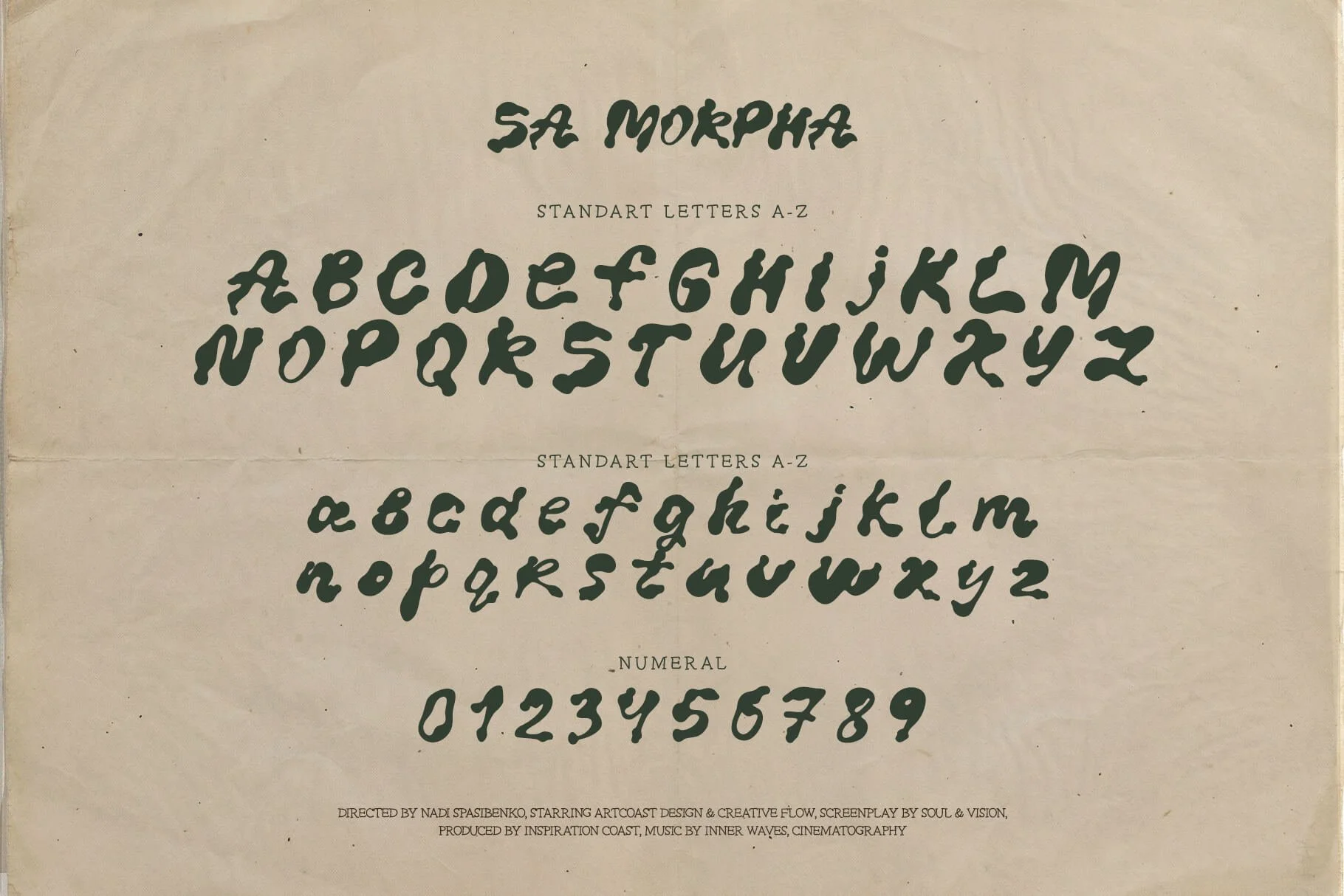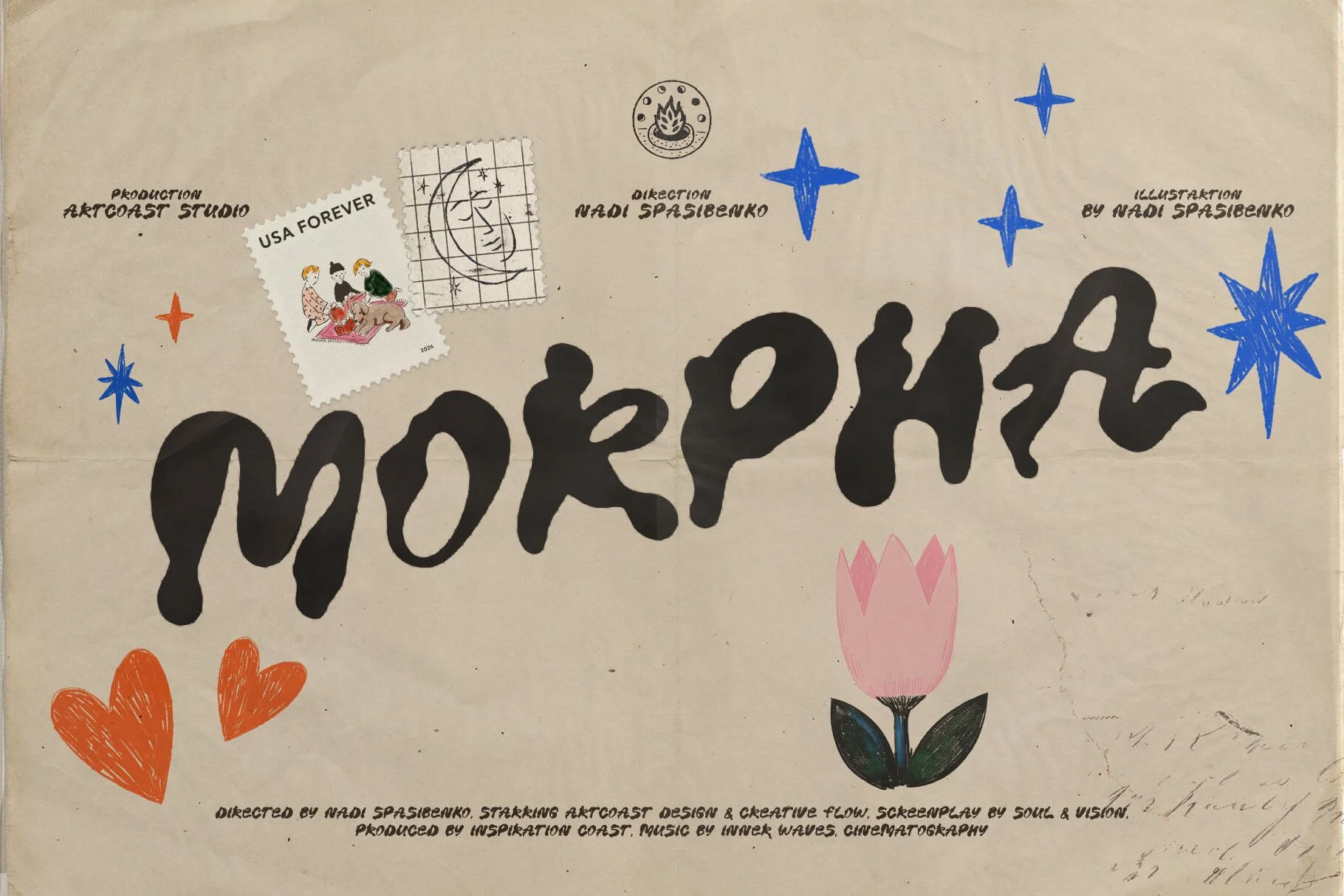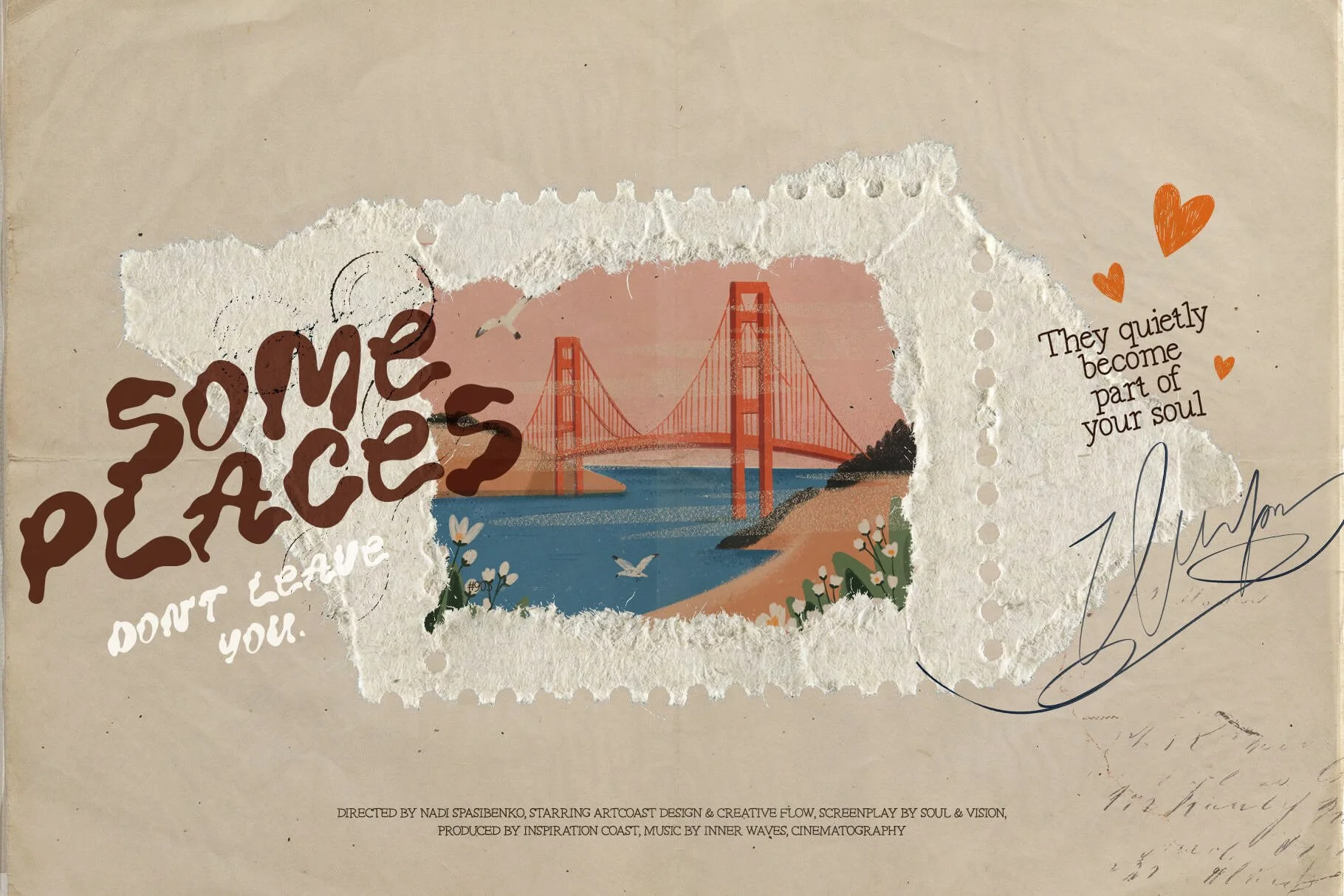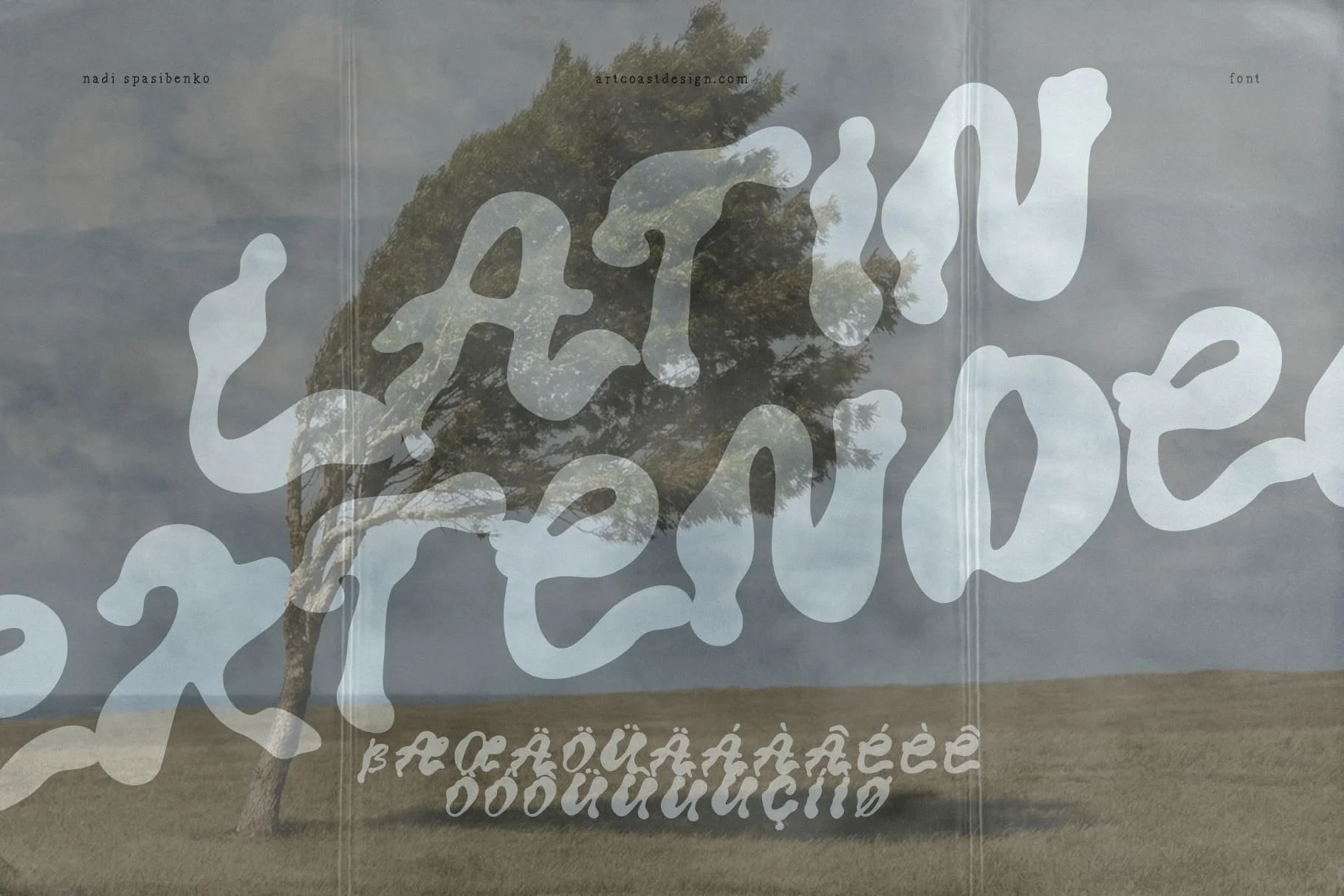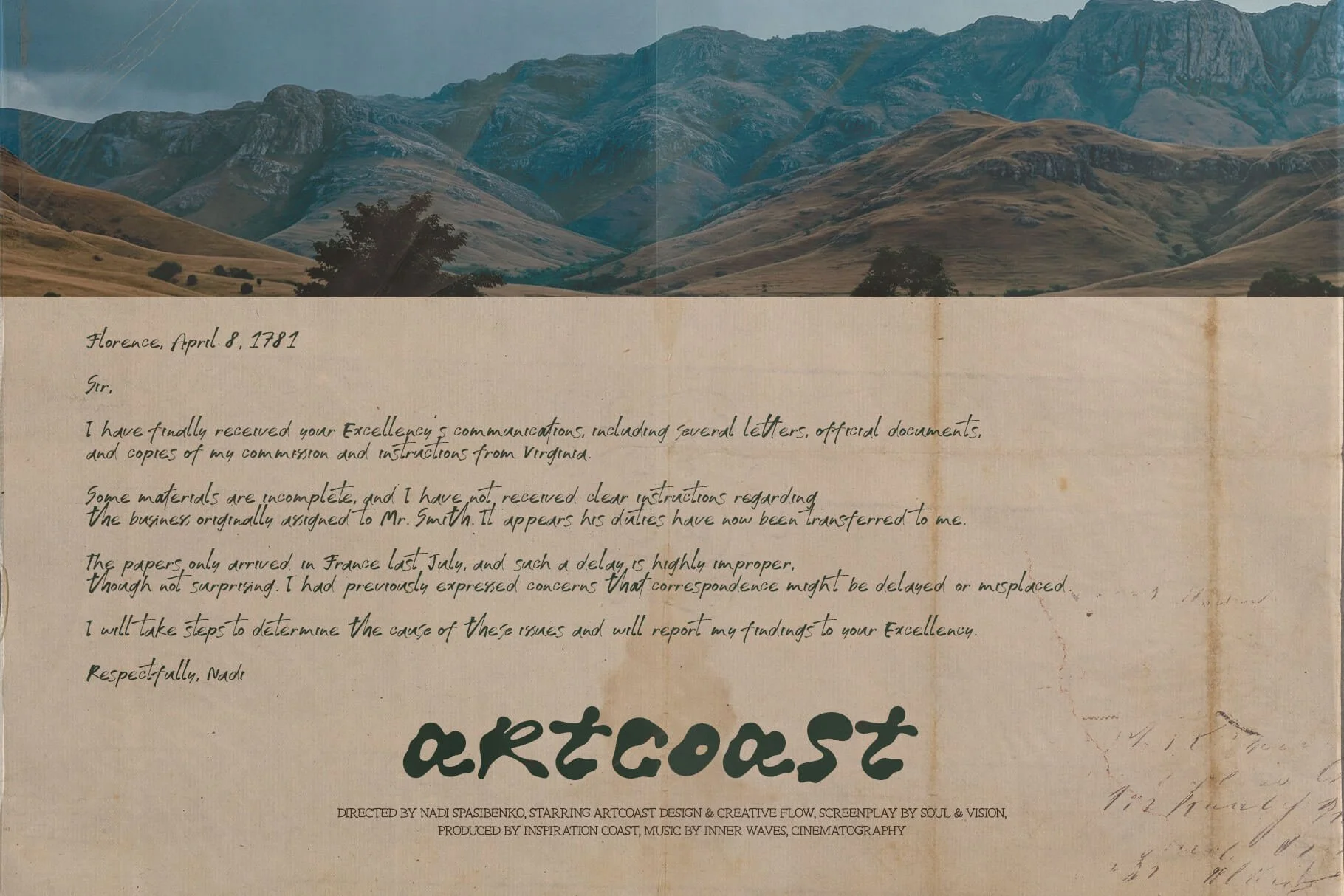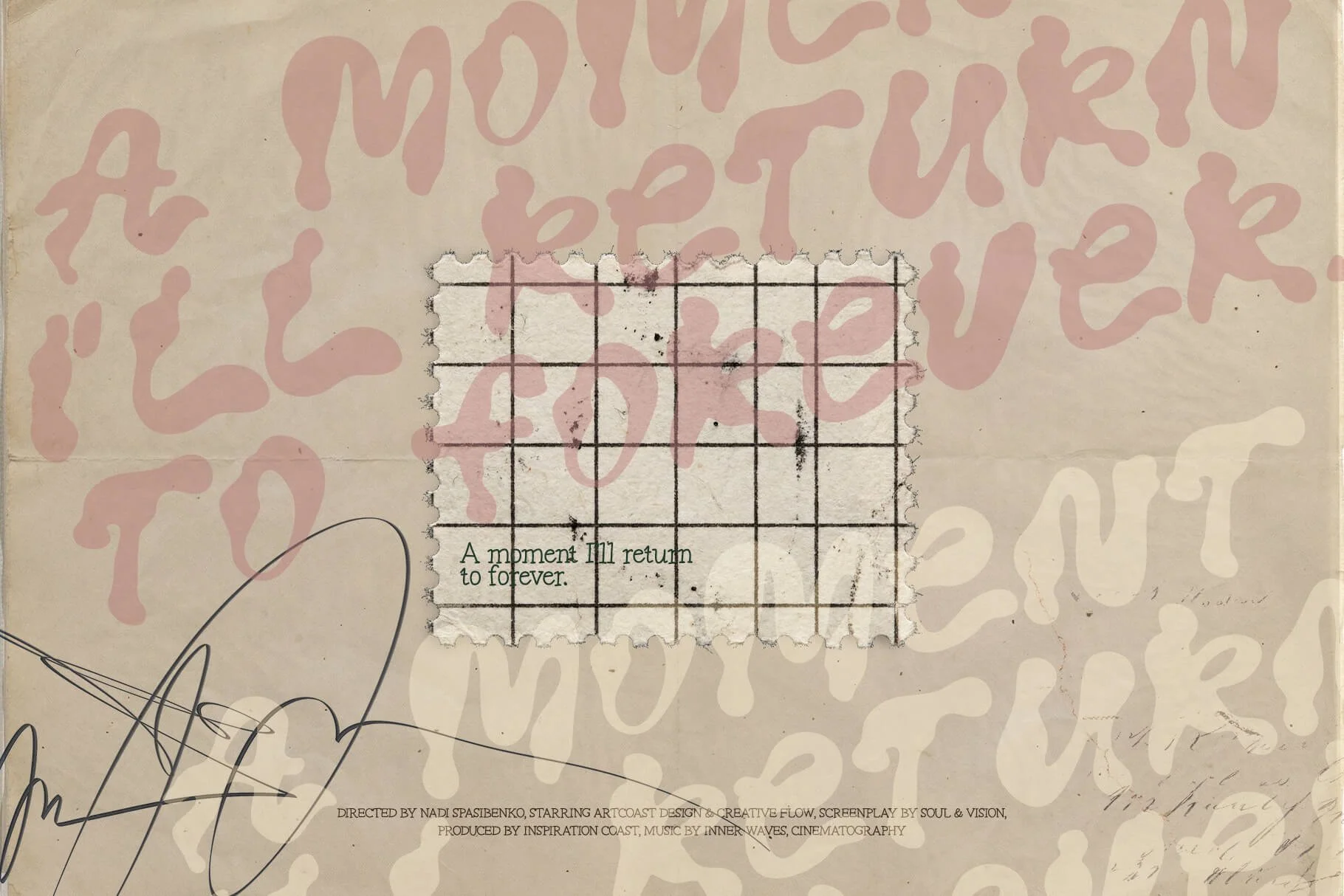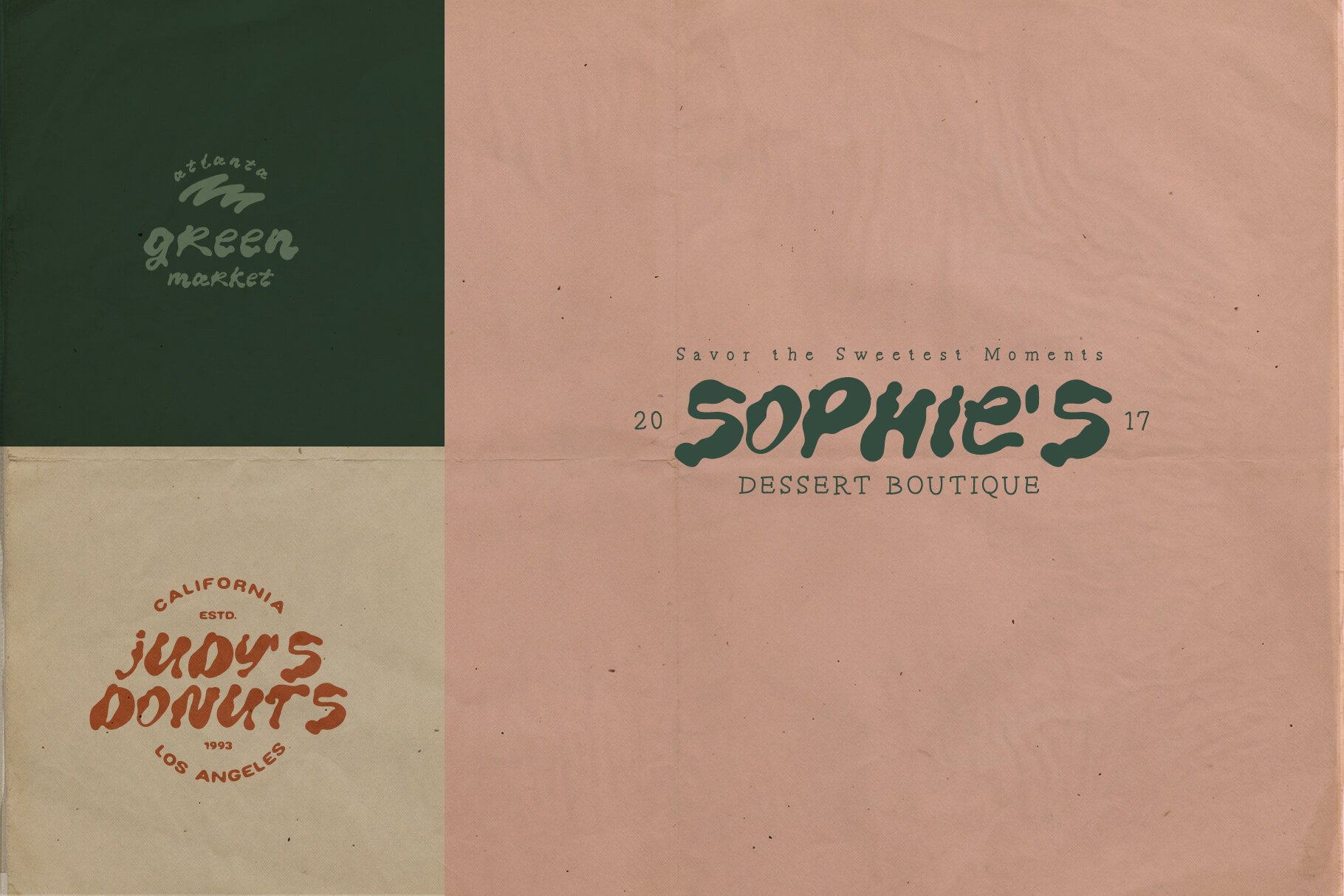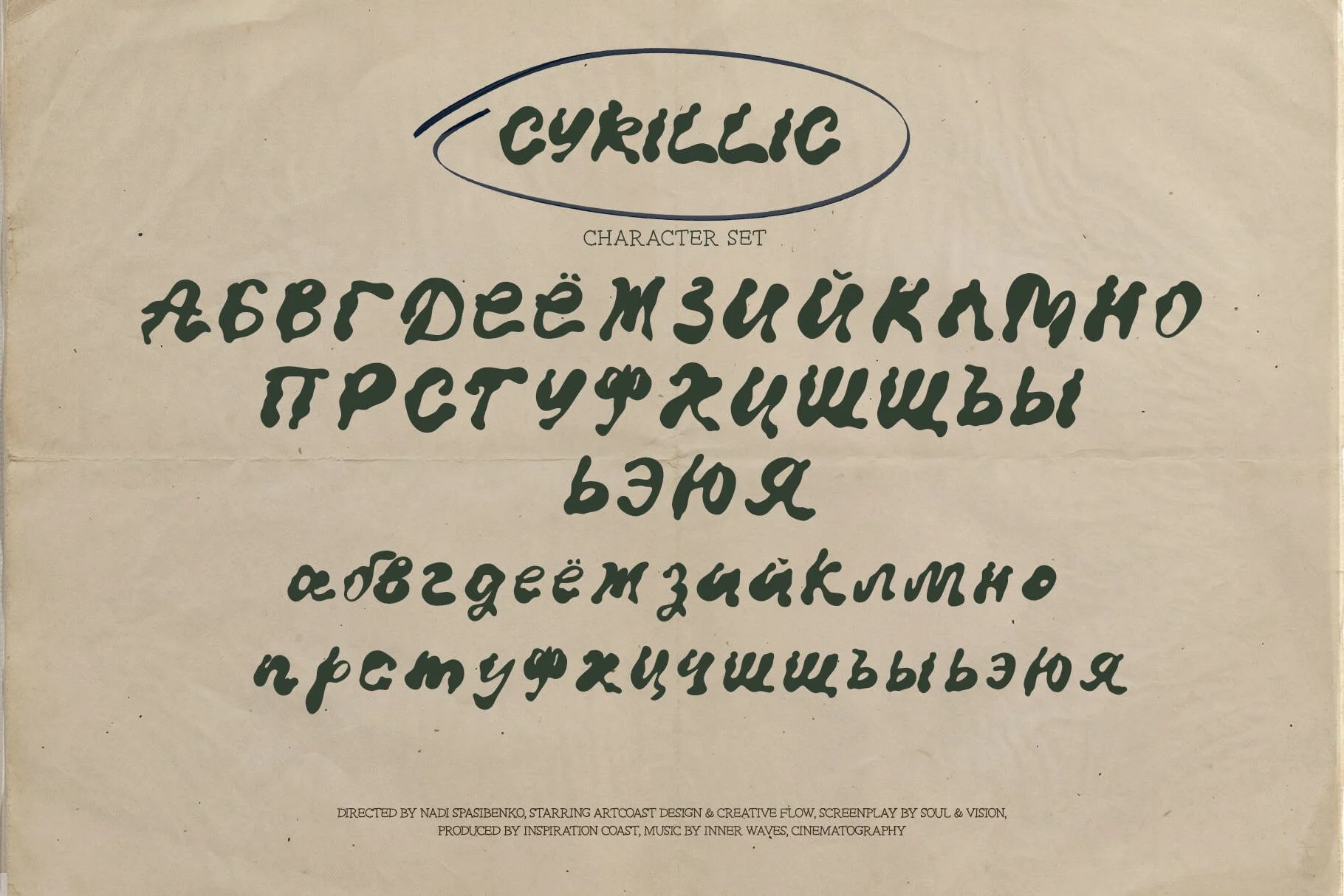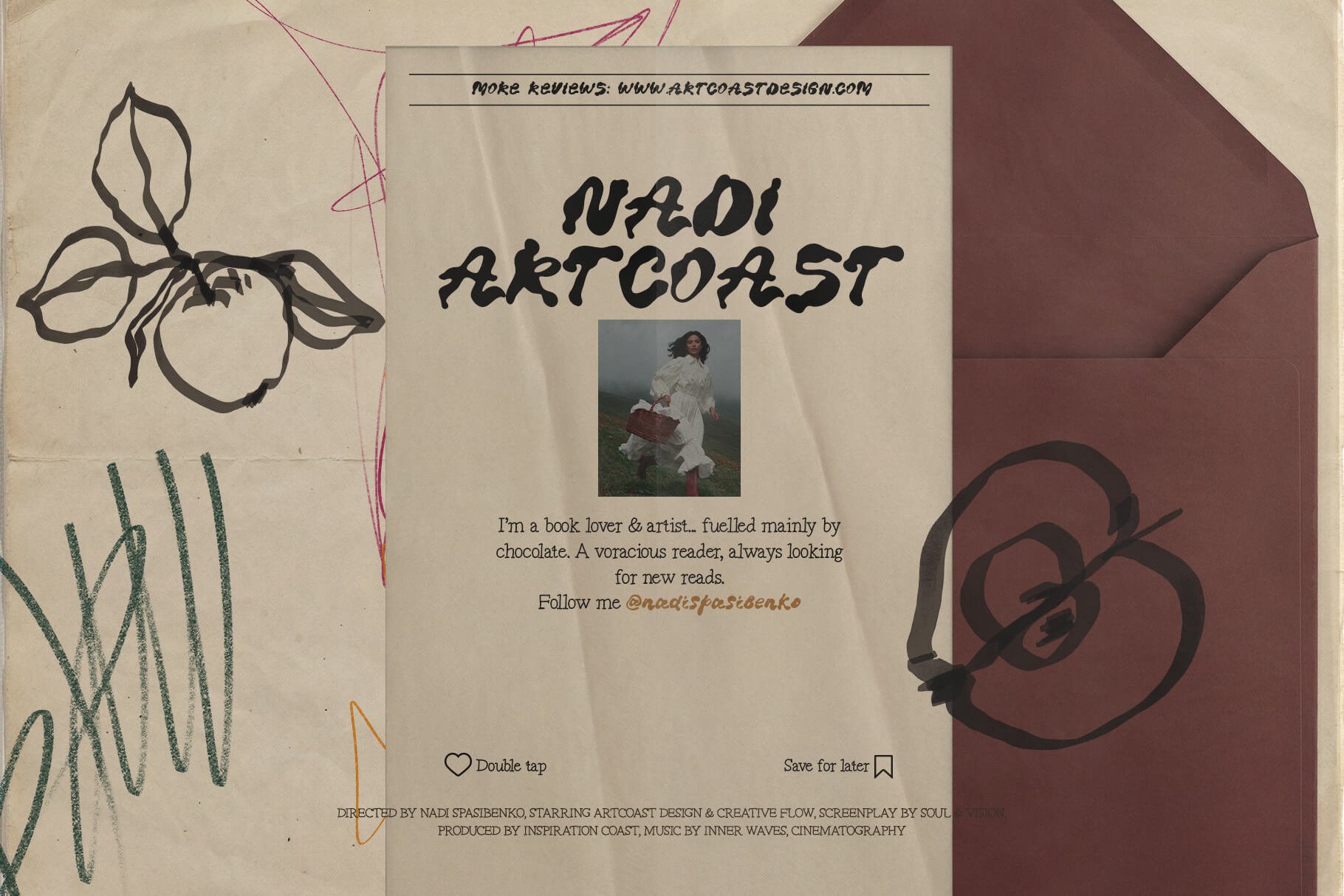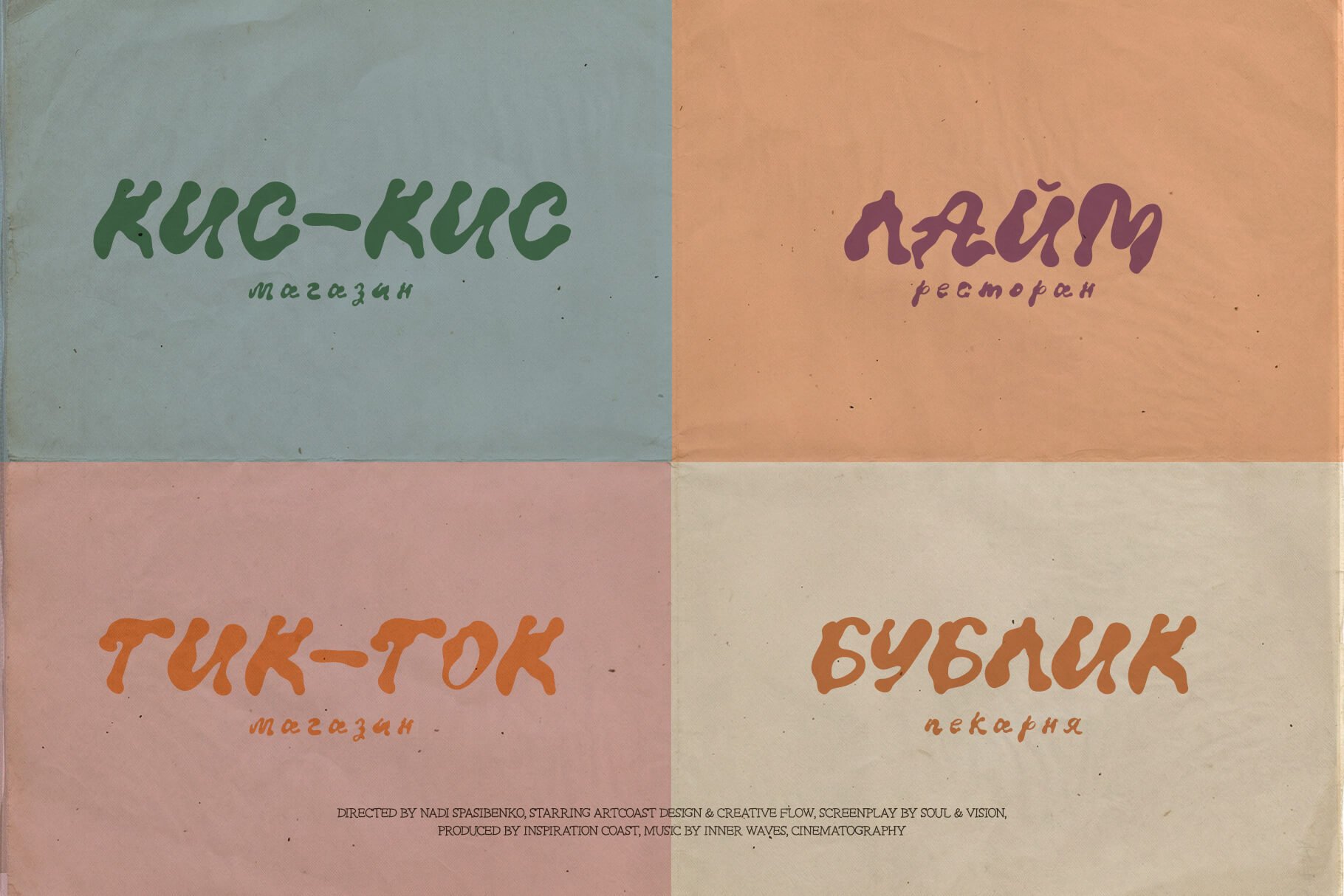
Morpha – Organic Blob Typeface: The Flow of Modern Design
Morpha is a high-energy organic blob typeface that captures the essence of fluid movement and liquid aesthetics. Designed with soft, melting curves and bold, hand-drawn letterforms, Morpha perfectly aligns with the "liquid typography" trend dominating contemporary graphic design.
This font strikes a rare balance: it offers the playful, expressive charm of bubbly lettering while maintaining the professional structure needed for high-end branding and visual identity.
Why Choose Morpha?
Fluid & Melted Shapes: Each character is meticulously crafted to look naturally "poured," creating a smooth, organic flow.
Playful yet Bold: A heavy-weight, soft-bold style that commands attention without being aggressive.
Multilingual Support: Fully equipped with Latin and Cyrillic alphabets, including extended European characters.
Nostalgic Modernity: It evokes a sense of 70s psychedelic vibes mixed with a clean, 2026-ready aesthetic.
Ideal for Creative Projects:
Branding & Logos: Create a memorable, "squishy," and approachable brand voice.
Packaging Design: Perfectly suited for food, desserts, organic beauty products, and lifestyle goods.
Social Media & Content: Stand out on Instagram and TikTok with bold, trendy headlines.
Merchandise: High-impact look for t-shirts, stickers, and posters.
Cover Art: Unique character shapes make it ideal for music albums and book covers.
Technical Features:
Full Latin + Cyrillic character sets.
Extended European language support.
Numbers, symbols, and essential punctuation.
Optimized for large display sizes (headlines, hero sections, posters).
Morpha is more than just a font — it’s a mood. It’s warm, expressive, and slightly nostalgic, making your designs feel alive and approachable.